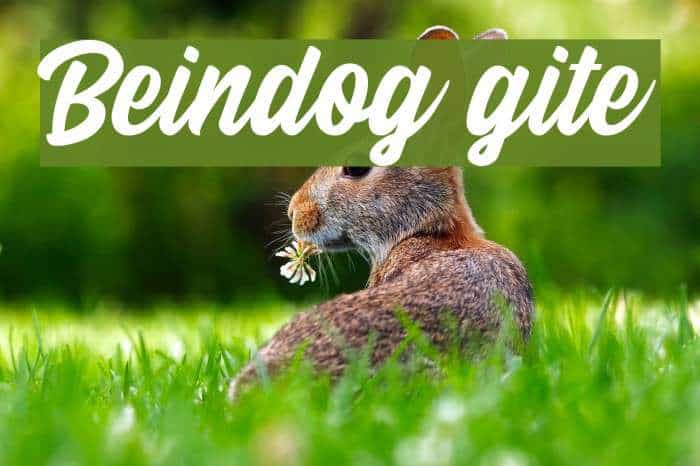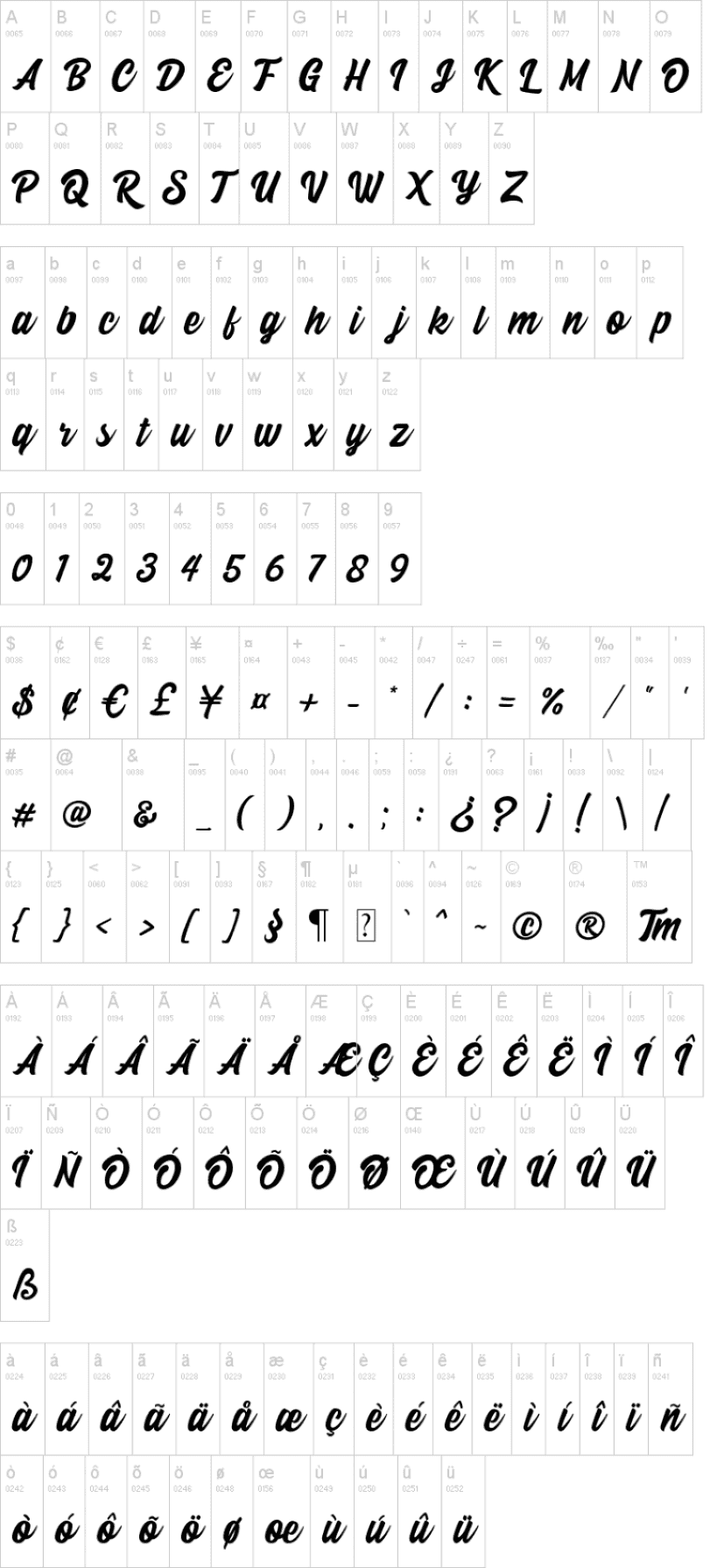
Discover Beindog Gite Font, part of the Brush collection—a versatile and unique font perfect for adding a personal touch to your projects. Download it for free and enjoy crafting designs with style, from invitations to social media posts. This font is available exclusively for personal use, giving you the freedom to create without limits. Unlock your creativity with Beindog Gite Font today!
Beindog Gite is one of the exceptional Brush fonts that are designed by masterpiece_art, and one can download it for free to use it for personal purposes only. The free version also consists of all lower cases and special characters.